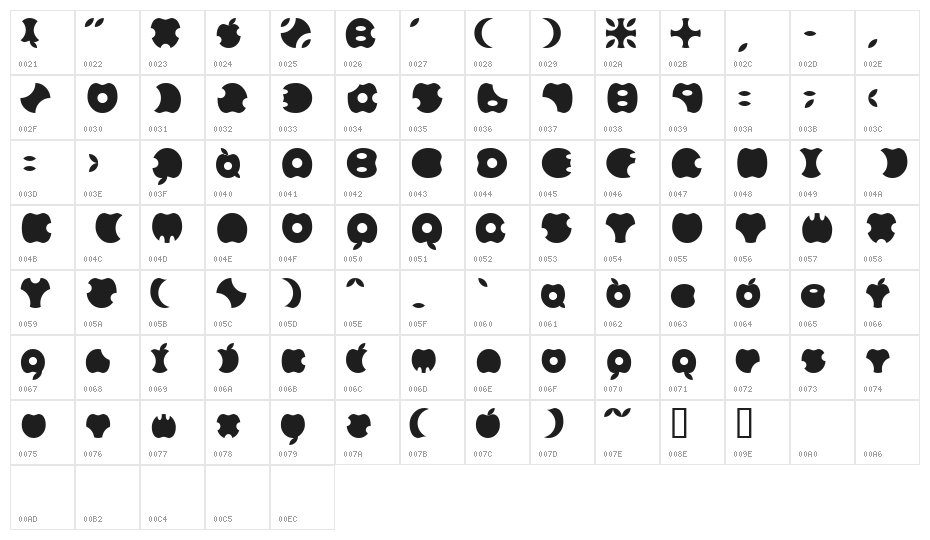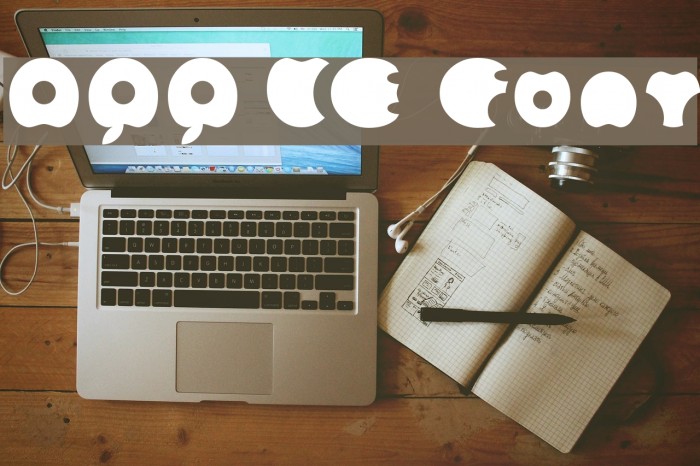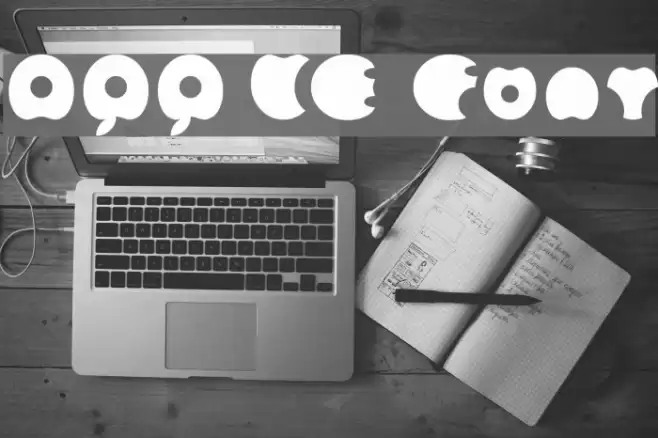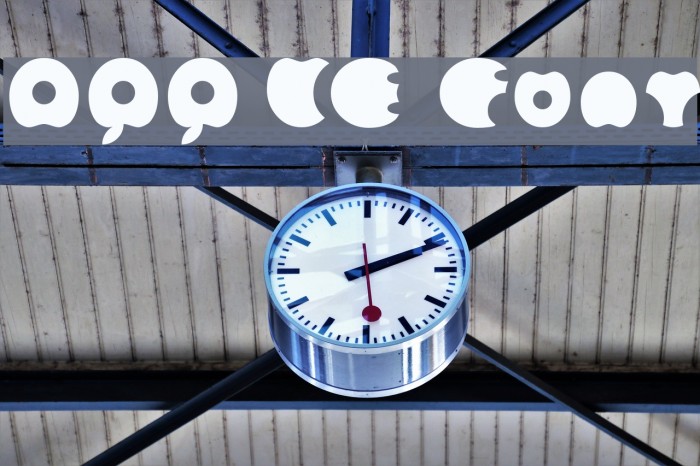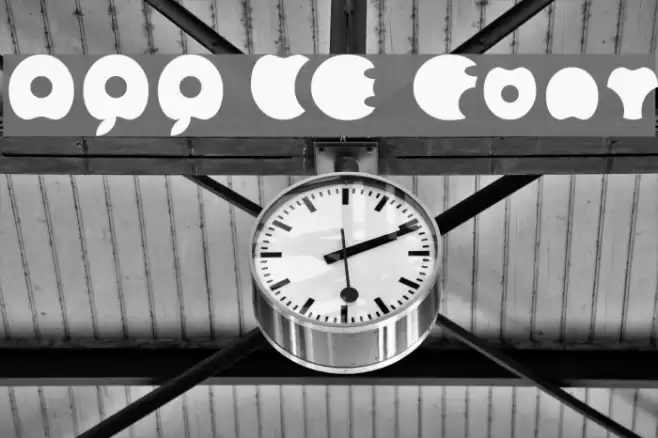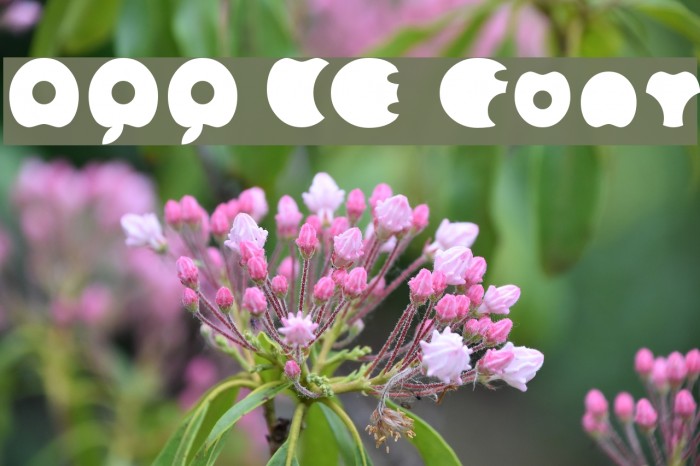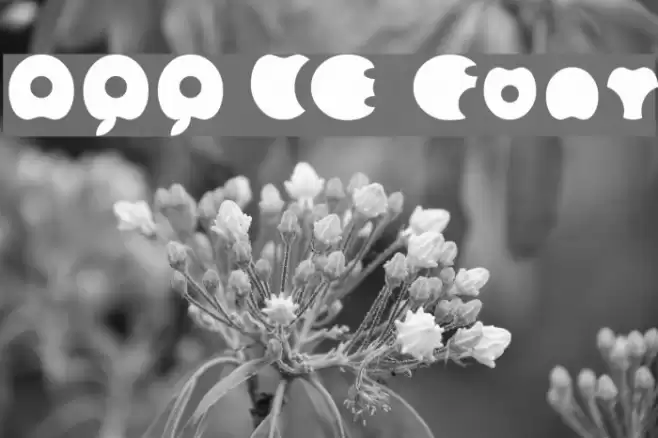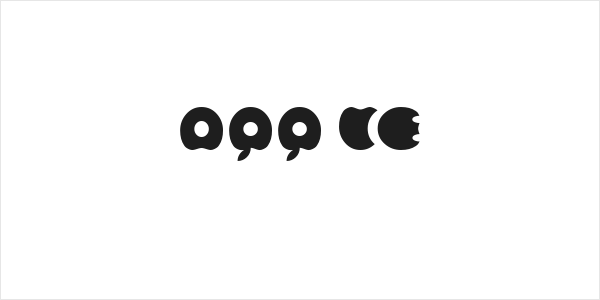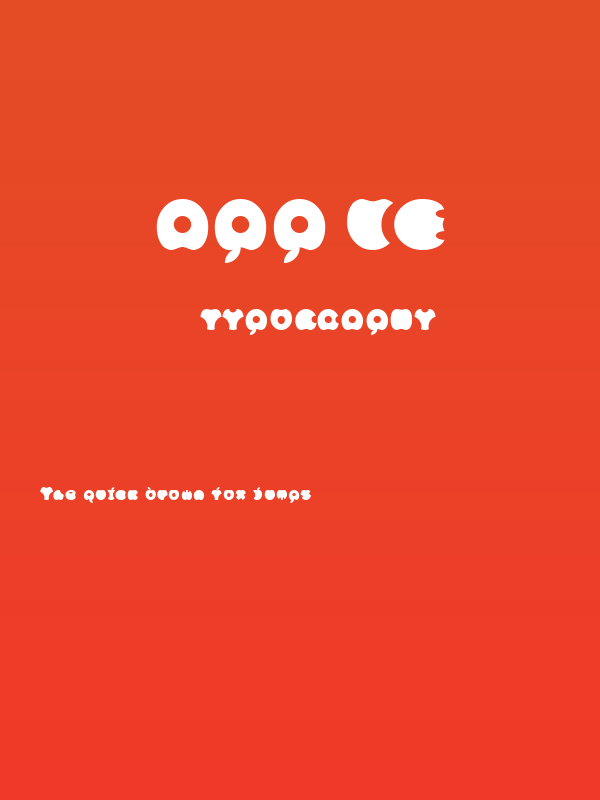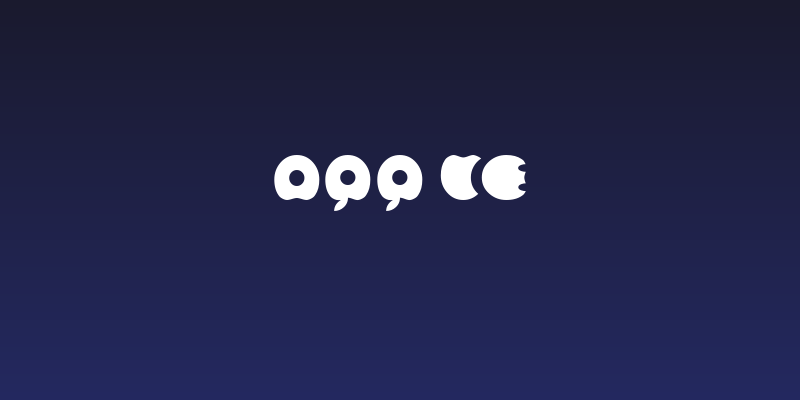
APPLE Font
APPLE Description
This font features a playful and bold design, with each character resembling an apple shape. The letters are rounded and filled, creating a strong visual impact. The unique style is characterized by its decorative and whimsical appearance, making it stand out in any design. The font maintains a consistent weight throughout, with no variation in stroke thickness, giving it a uniform look. The characters are closely spaced, enhancing the compact and cohesive feel of the font. This distinctive style is ideal for projects that require a fun and eye-catching typeface.
| Proposed Projects | Ideal for children's books, playful branding, food-related designs, and creative posters. |